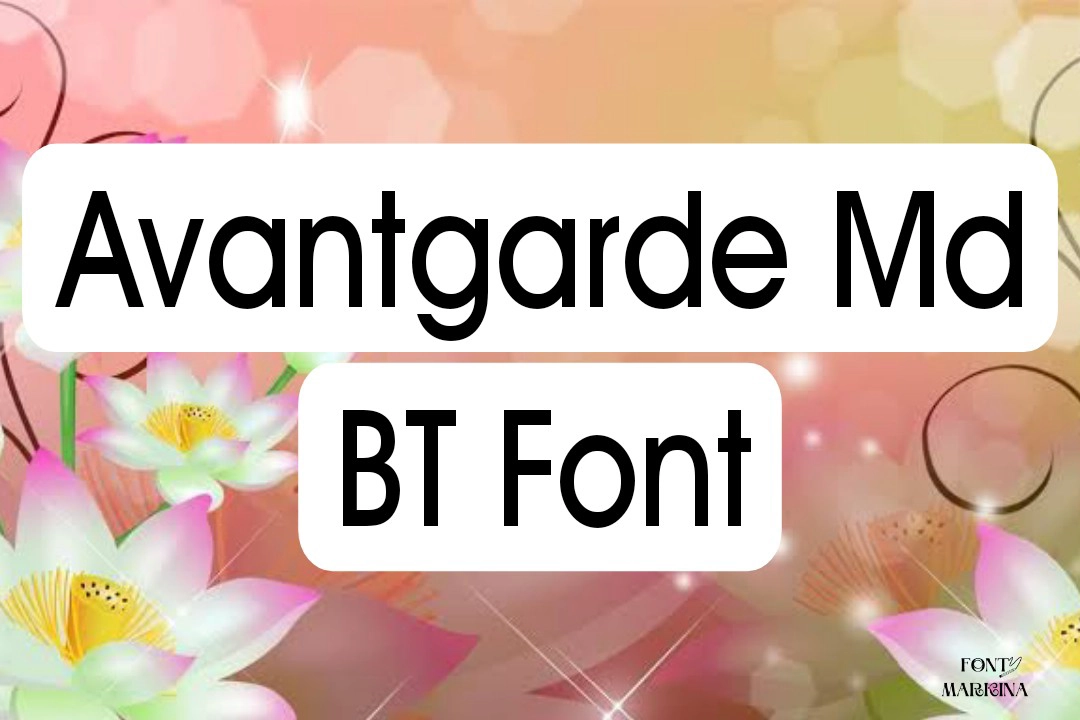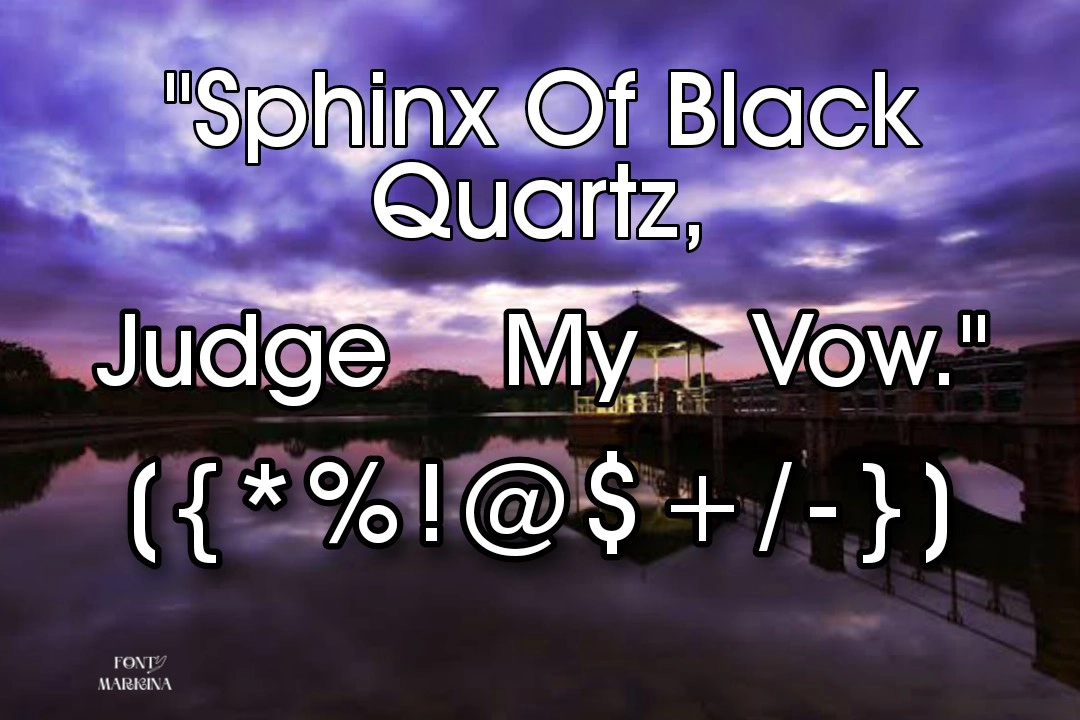
Avantgarde Md BT  Font
Avantgarde Md Bt Font is from the sans serif family of fonts. This texture was conceived by a brilliant Swiss-type creator named Max Miedinger. This trendy texture has a large x-height which makes it very readable and appropriate for a vast variety of display objectives.
The Avantgarde Md BT Font is available in many weights and styles, including italics, condensed, extended, normal, and bold. This texture is obtainable in 06 distinct weights and 4 styles and it includes an italic version of each weight. You can use Open Sans Condensed Font which is similar to this one. Search for this typography on google.
Its design is described by its high contrast between the dense and slim strokes of the letters. It also features strong vertical stress which gives it a rigid but geometric look that distinguishes it from other sans serif fonts. Its generator tool is a very helpful tool for creating graphic designs.
Uses of Avantgarde Md BT Font
This traditional font was designed for use in advertising, packaging, and publishing applications. The Avantgarde Md BT family has been designed to be used in small sizes so it can be used for headlines and subheads. All streamers use this family for their thumbnail designs.
The design also makes the font ideal for use on posters and other signage applications because of its high legibility at a small size. You can make the pairing of  Aaux Next font with this texture. It is very helpful for business sectors and university projects. It is best for certificate signatures.
NameAvantgarde Md BT  Font
DesignerMax Miedinger
TypeSans Serif
What is the type of Avantgarde Md BT Font?
A stylish sans serif typeface that includes 6 classic weights and has a large X height.